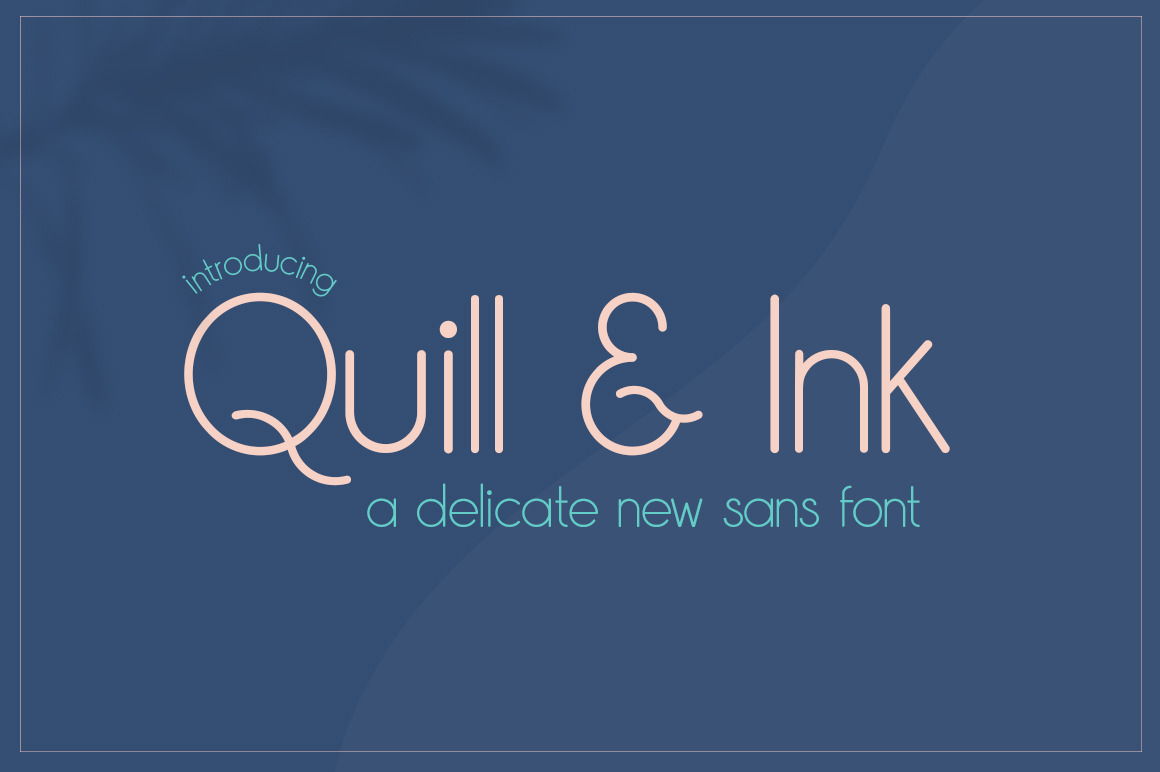
Quill & Ink Sans Font
Quill Ink Sans Font is perfect for literary magazine layouts, publishing house branding, writing workshop materials, author portfolio designs, bookstore signage, creative writing programs, manuscript presentations, literary event marketing, and scholarly publication projects.
What makes Quill Ink Sans Font exciting is its sophisticated fusion of traditional writing heritage with contemporary clean design that honors the timeless craft of penmanship while embracing modern readability standards. The font features crisp sans serif letterforms with subtle ink-inspired details that evoke the precision and artistry of quality writing instruments and handcrafted manuscripts. Its refined character and literary authenticity make it perfect for brands that want to communicate intellectual depth, writing excellence, and the enduring tradition of fine literature while maintaining the clarity and accessibility that modern readers demand across all digital and print applications.
Quill Ink Sans Font family includes comprehensive literary weights ranging from Light to Black, typically featuring Regular, Medium, Bold, and Heavy variations with corresponding italic styles. The family often includes writing-inspired alternates, scholarly symbols, and literary ornaments that enhance the font's intellectual aesthetic, providing designers with complete flexibility for creating sophisticated typographic hierarchies and professional publishing applications.
This intellectually refined typeface has gained recognition among publishing professionals and literary organizations seeking sophisticated typography solutions that balance traditional craftsmanship with contemporary functionality. Quill Ink Sans Font Free Download provides an excellent opportunity to write with this literary font before investment. The font's advanced features include optimized readability for extended reading, professional kerning for editorial applications, and scholar-grade clarity that ensures consistent performance across all publishing platforms and literary environments. Whether you're designing for independent publishers, creative writing centers, or literary institutions, Quill Ink Sans Font delivers the intellectual sophistication your project requires. Its versatile nature makes it suitable for various literary applications including academic journals, creative writing programs, literary magazines, and educational publishing companies, ensuring your typography choices communicate scholarly excellence and literary credibility while creating memorable brand experiences that honor the rich tradition of fine writing and the essential role of literature in human culture through its distinctively refined and authentically literary visual character.